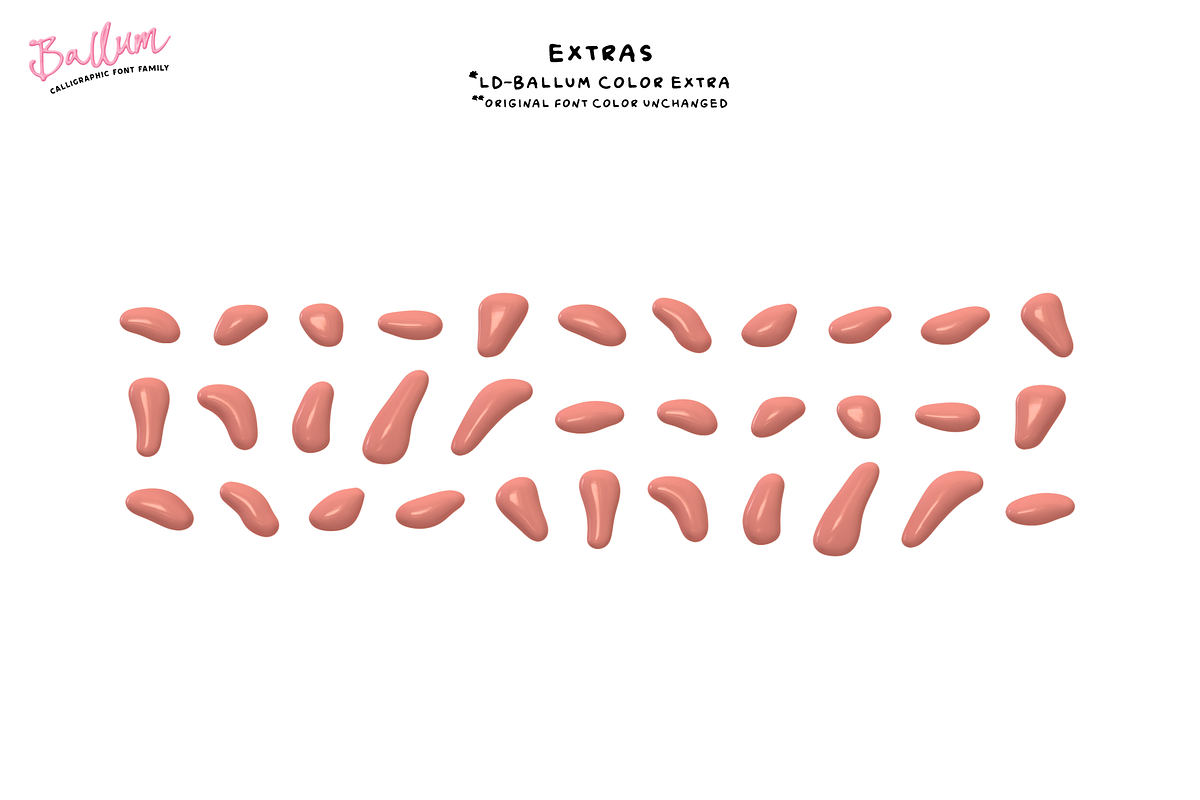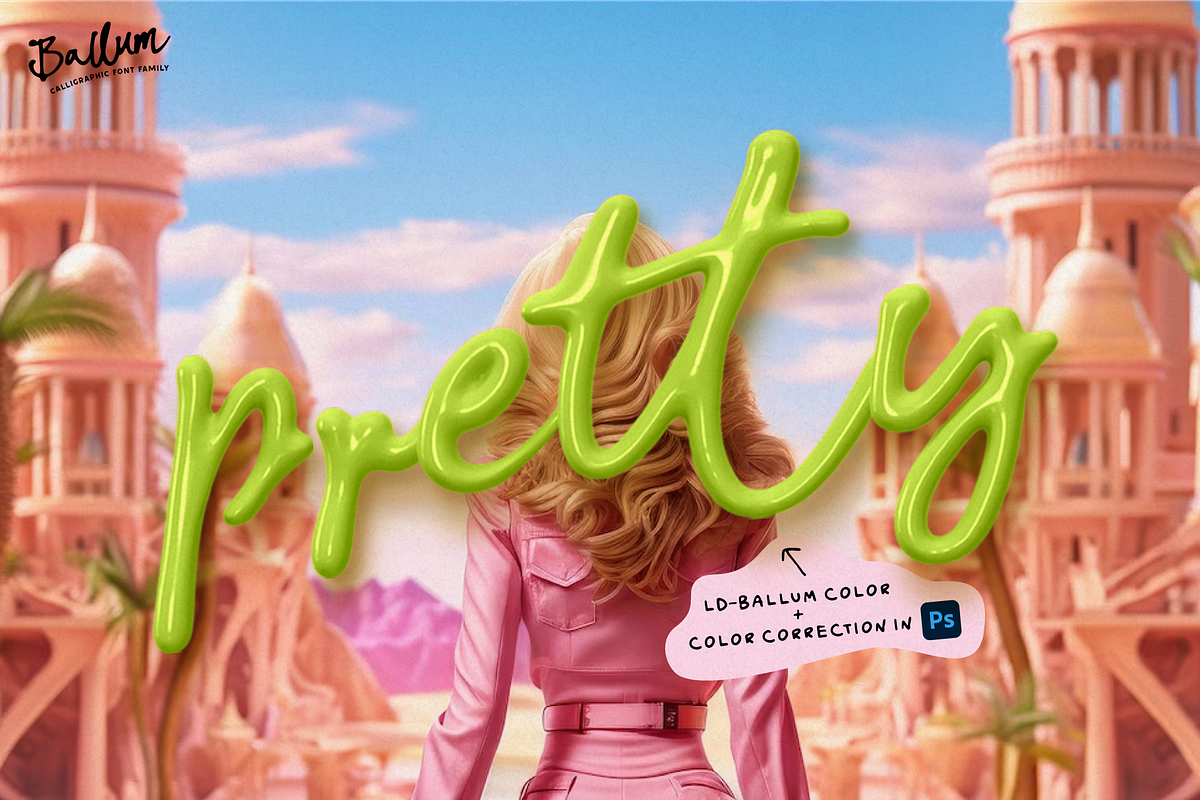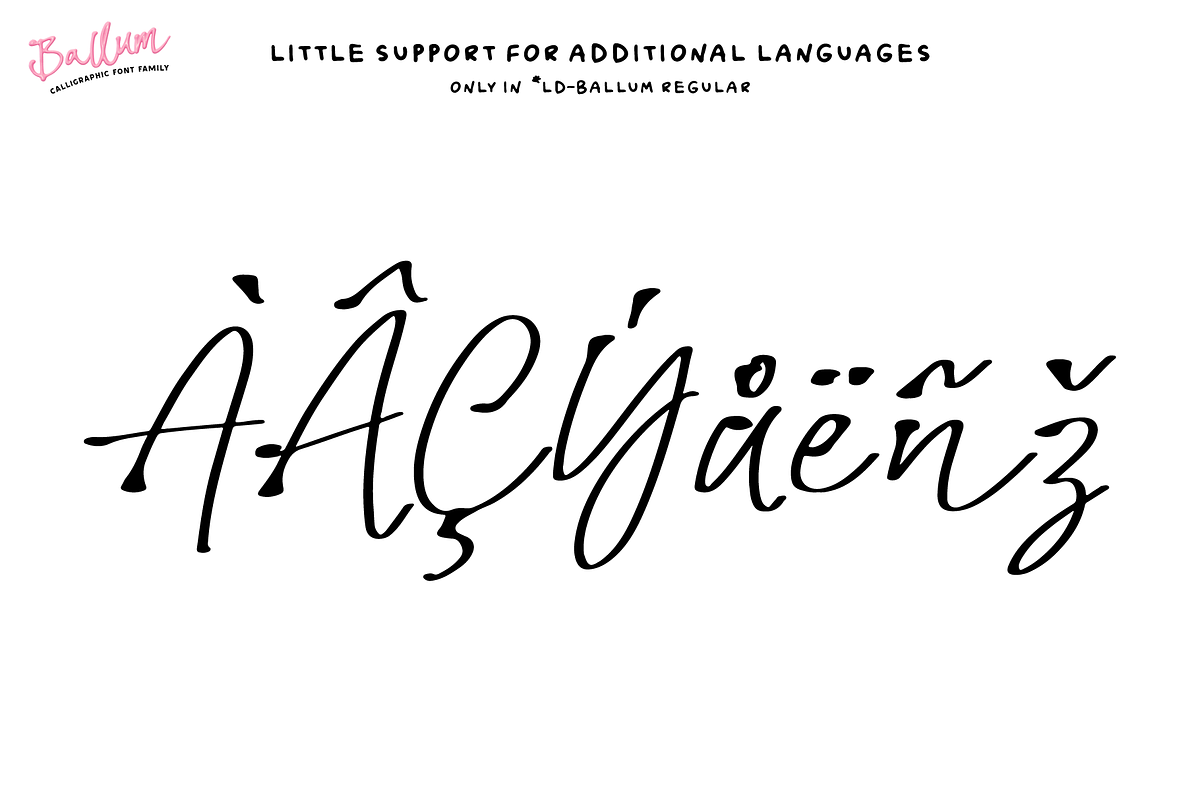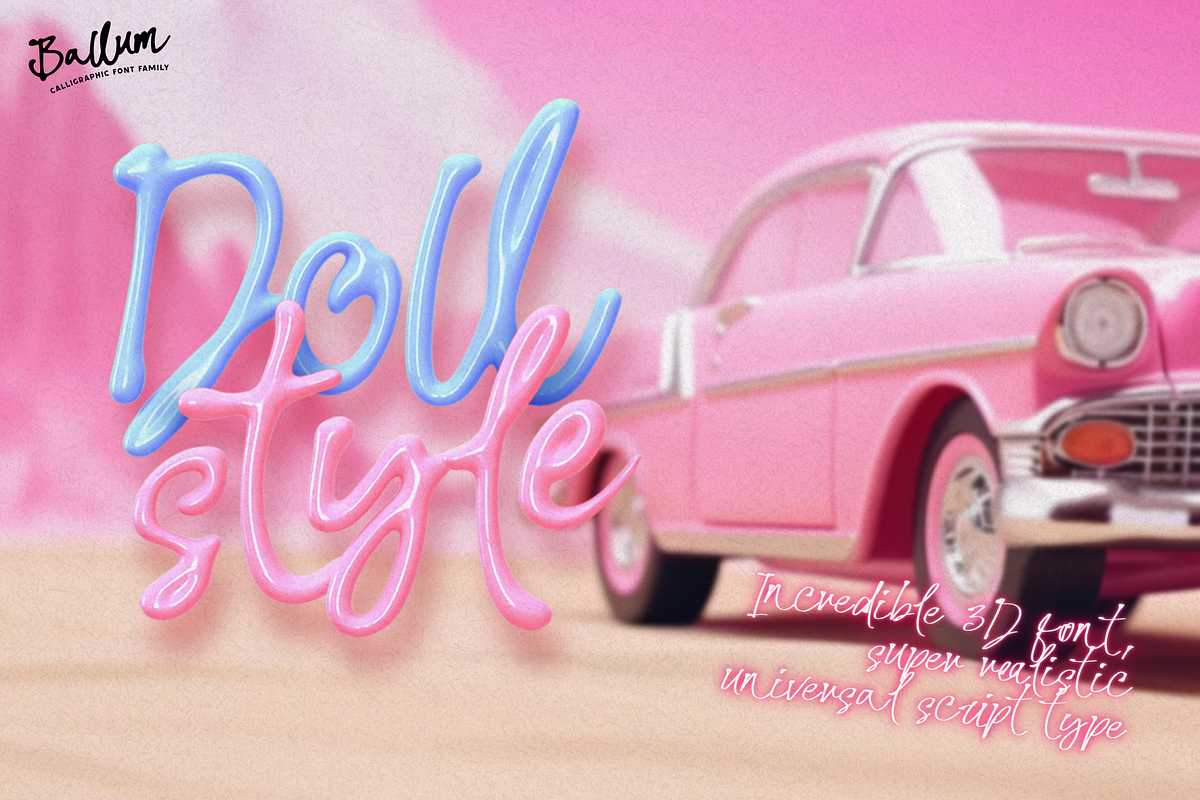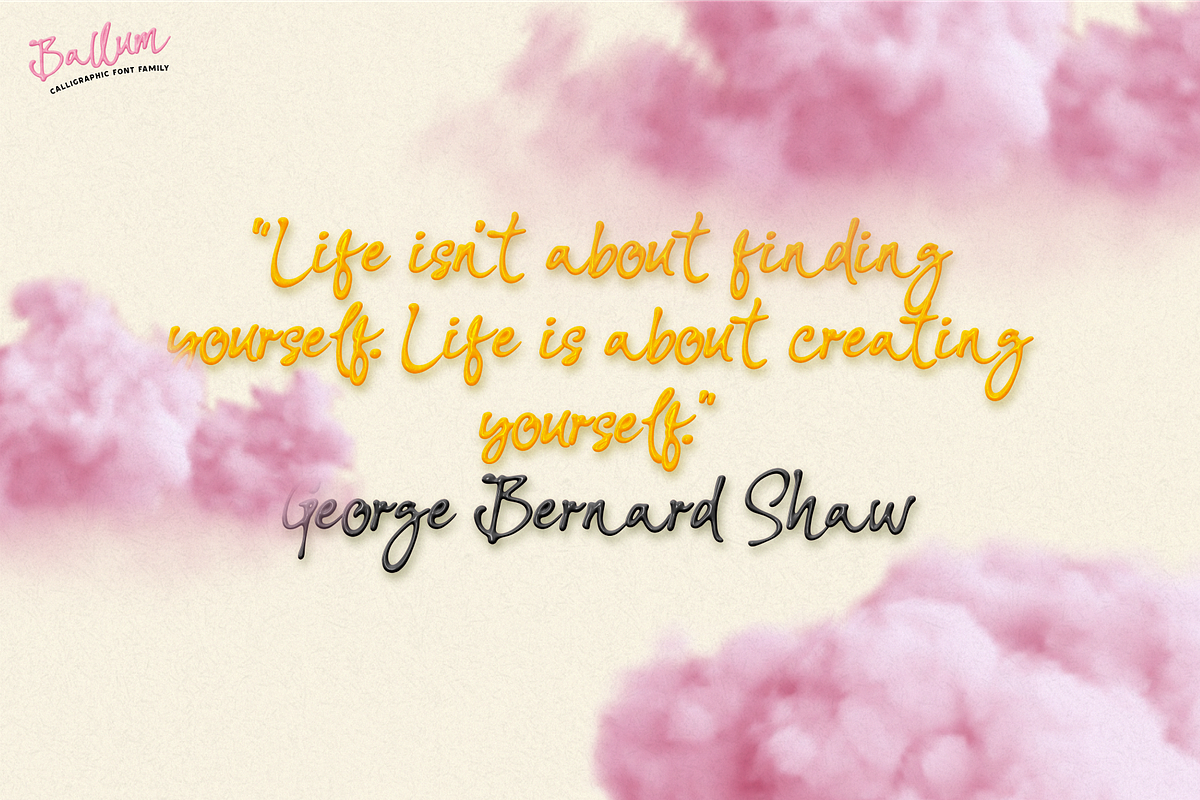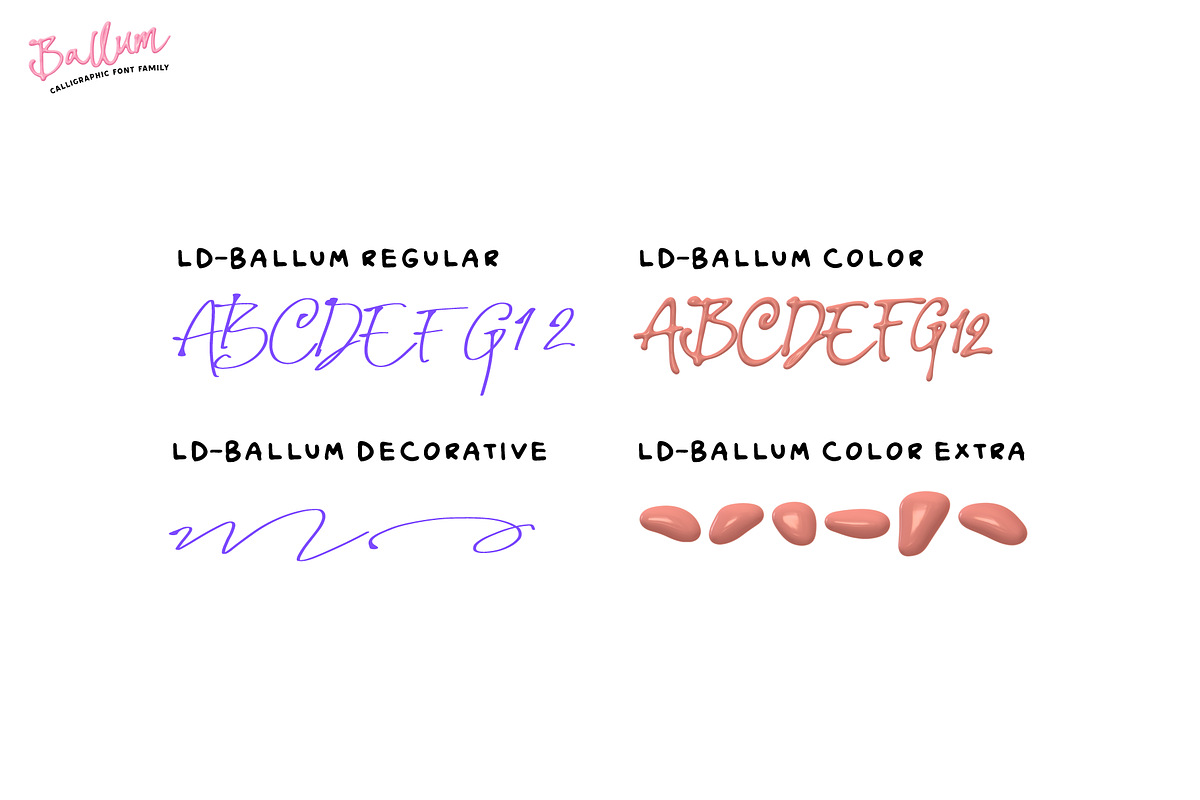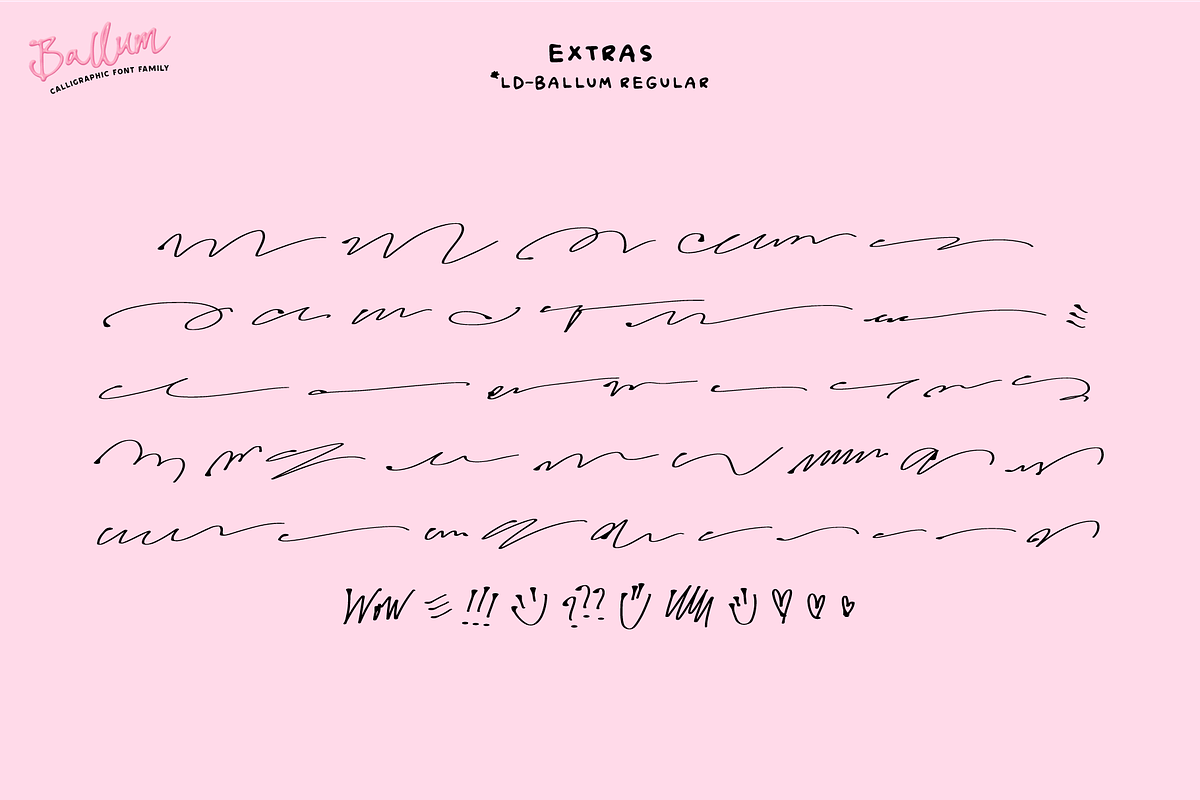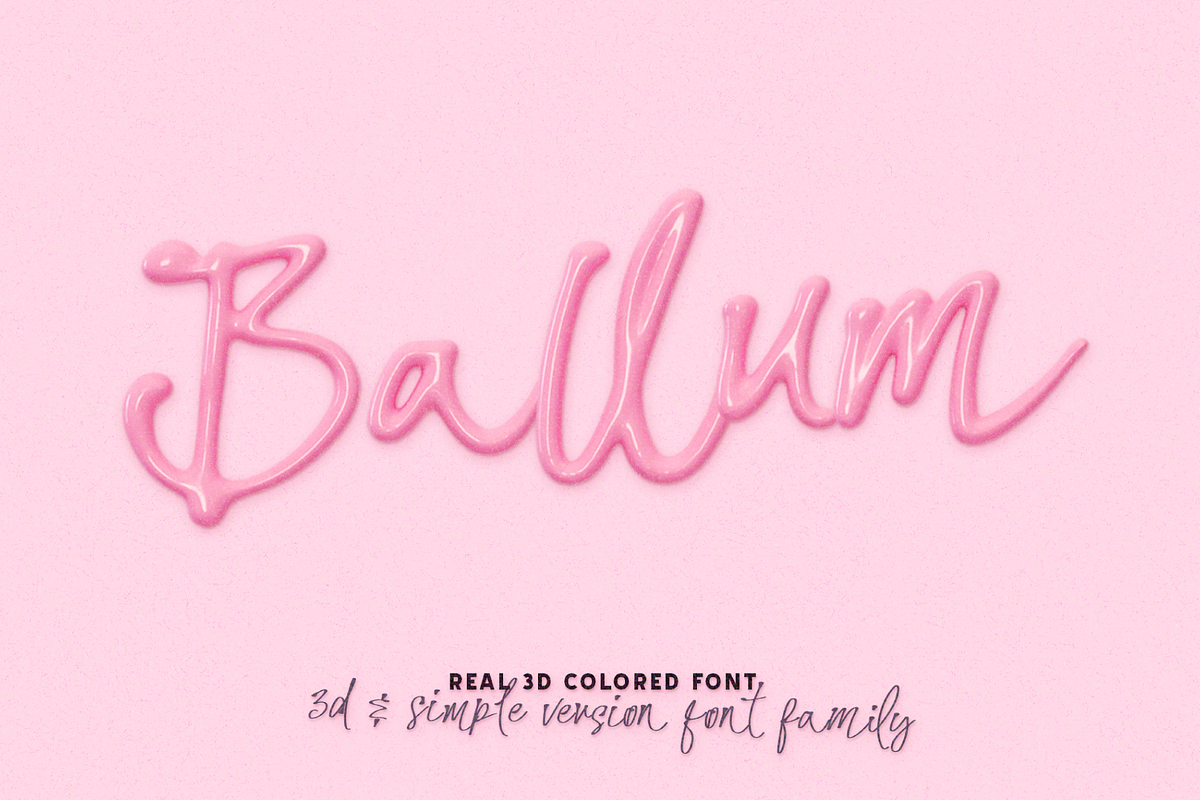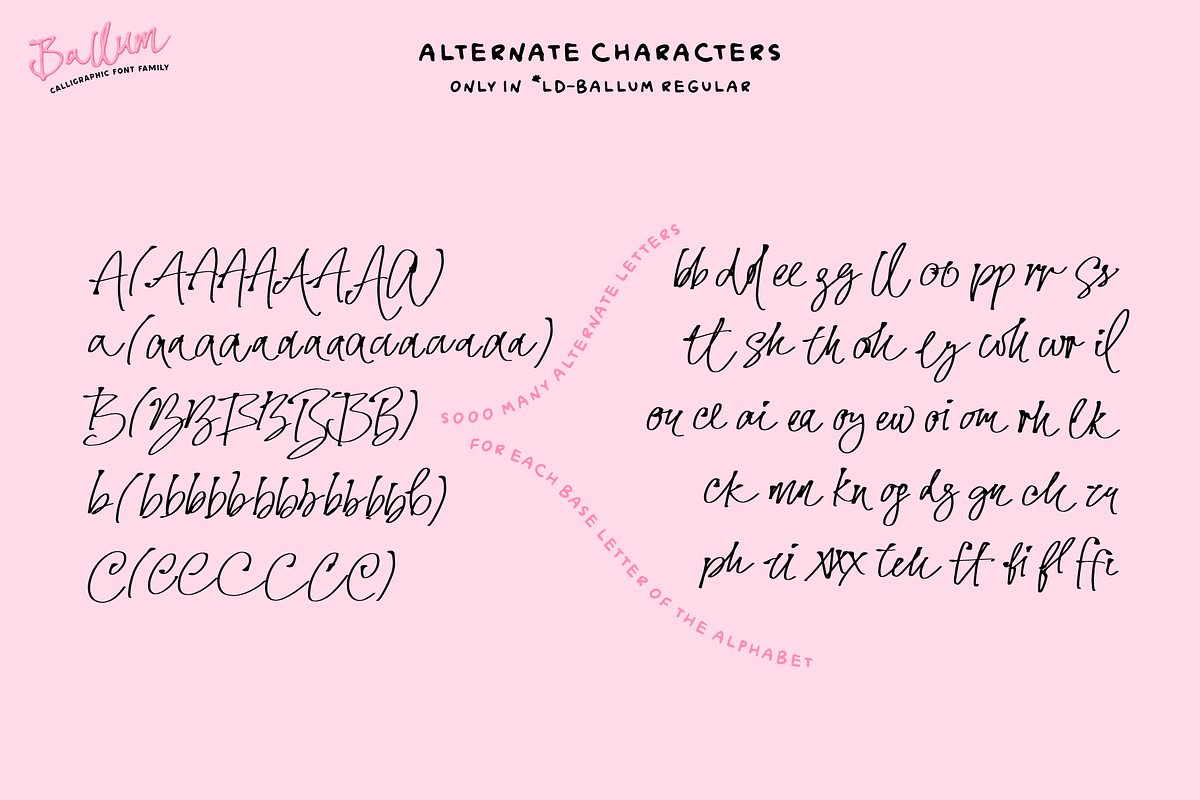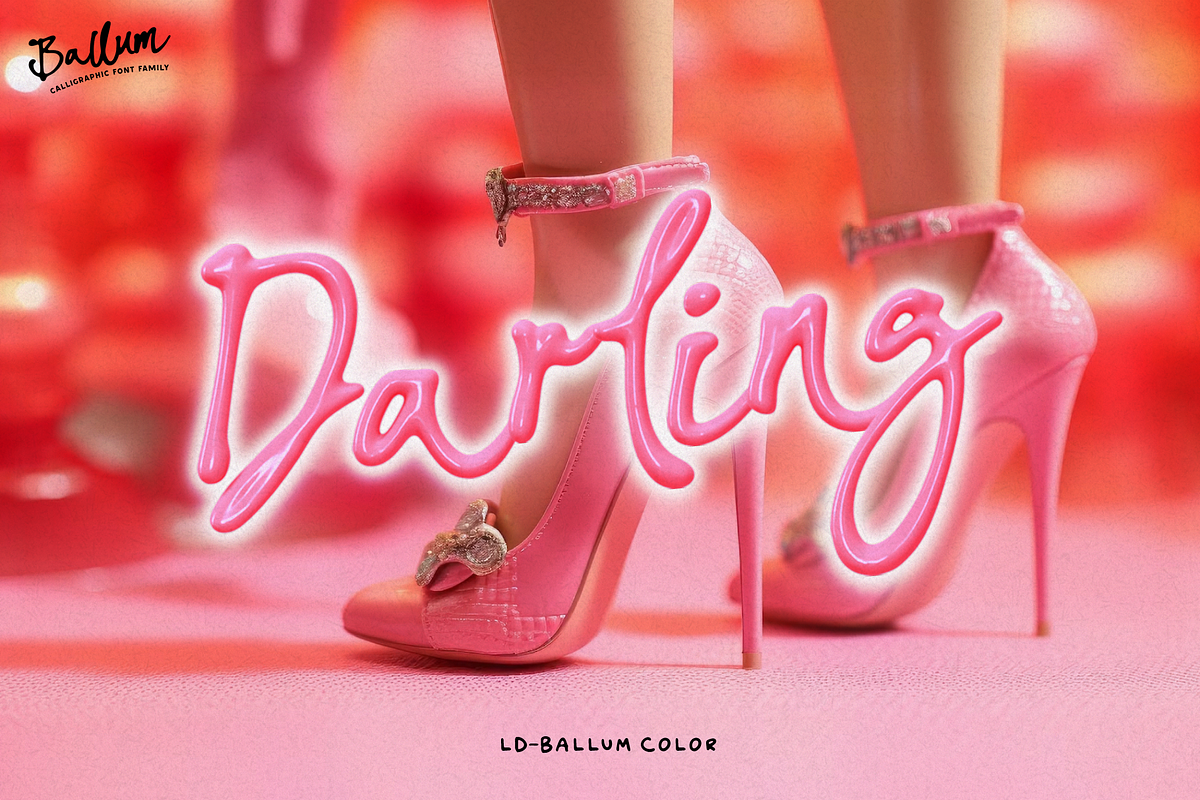
BALLUM. OTF 3D script color font.
Open the door to the world of calligraphic art of the future with BALLUM.
It's not just a typeface, it's a step forward in the visual evolution of text. Get ready for a font revolution with the Ballum OTF SVG script COLOR font family. This is a unique calligraphic color font. Writing immediately with 3D realistic letters is now real. Each letter seems to come to life before your eyes. Your text becomes the main character of the scene. Creating a stunning visual effect. This is your chance to bring to life something that has not yet been on sale.
From card and invitation design to branding and advertising, 'Ballum' will give your projects an extraordinary visual appeal. This is a font for those who are looking for how to draw attention and modernize each character. Any project that needs a dose of unsurpassed uniqueness. Bring your imagination to life in 3D. But that's not all! The 'Ballum' family includes additional fonts with decorative elements. You can decorate your projects with stylistic details, adding an extra edge to them.
- Real Plastic effect
- 2 OTF SVG fonts in the family with 3d raster color glyph
- 2 OTF classic system fonts
- Extras & ligatures
- Alternates characters
- Kerning